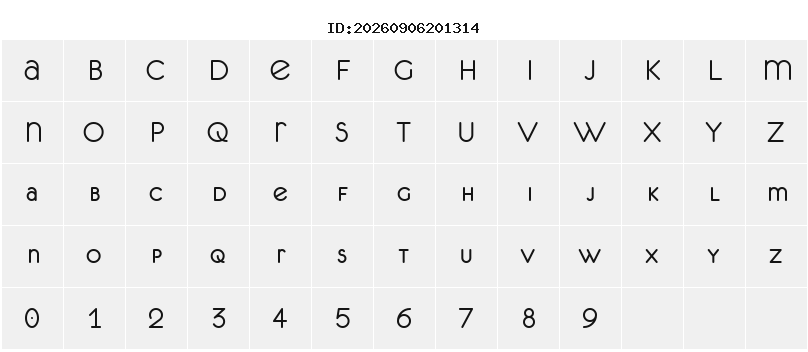
About unifur.ttf
unifur.ttf is a modern, elegant sans-serif font designed for ultimate readability and visual harmony. Perfect for branding, headlines, web design, and print materials.